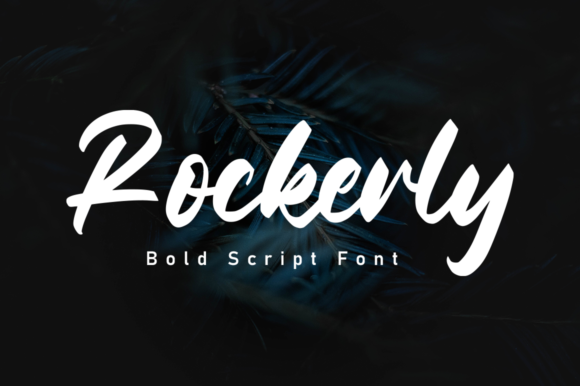
Rockerly Font - The Rockstar of Sporty Fonts
Are you ready to hit a home run with your designs? Rockerly Font is the MVP you need! This bold and beautiful script font will knock your projects out of the park.
Picture this: your sports-themed designs bursting with energy and flair. Rockerly Font's dynamic curves and sharp edges capture the essence of athleticism. From team logos to jersey designs, it's the perfect font to give your projects a winning edge.
But Rockerly Font isn't just for sports. Its modern and stylish look makes it a versatile choice for any project that needs a touch of edginess. Whether you're creating posters, invitations, or social media graphics, Rockerly Font will make your designs stand out like a champion.